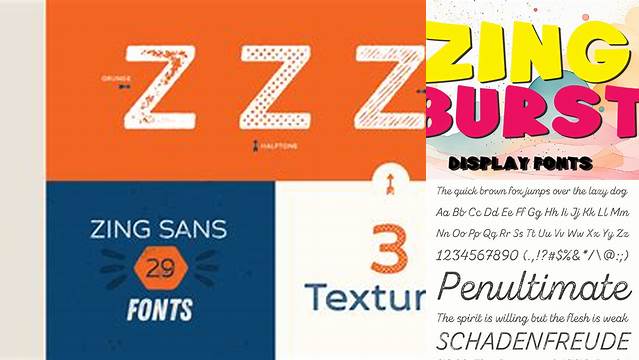
Zing Font: A Designer's Guide To Uses And Pairing
Let's dive deep into the world of Zing Font! This guide will explore everything you need to know about this unique typeface, including its characteristics, best uses, and where to find it. Whether you're a seasoned designer or just starting, understanding the nuances of fonts like Zing can significantly enhance your projects. So, buckle up and get ready to explore the ins and outs of Zing Font.
What is Zing Font?
Zing Font is a typeface known for its distinctive and playful design. It often features rounded edges, unique letterforms, and a generally friendly appearance. Because of these qualities, it's a great option for projects that need a touch of creativity and fun. The specifics of Zing Font, such as its designer, the year it was created, and the exact licensing, can vary based on the specific version or source you're looking at. You might find different variations of Zing Font on different font platforms, each with its own particular flair. For instance, some versions may have a more geometric feel, while others might be more whimsical.
When you're checking out Zing Font, pay attention to the details. Look at the curves, the stroke thickness, and the overall balance of the letters. These elements play a big role in how the font feels and how well it works in different designs. Also, consider where you're downloading the font from. Reputable font foundries and websites will usually provide detailed information about the font's designer, its intended use, and any licensing restrictions. This can help you make sure you're using the font legally and ethically. For example, some fonts are free for personal use but require a commercial license if you're using them in a project that generates revenue. So, always do your homework before incorporating a new font into your work!
Moreover, the versatility of Zing Font makes it suitable for a range of applications. You can find it in logos, branding materials, website headers, posters, and even children's books. Its readability and visual appeal can make your message stand out and grab attention. Just imagine using Zing Font for a quirky cafe logo or a vibrant event poster – it has the potential to add a lot of personality and charm. Remember to pair it wisely with other fonts to create a balanced and harmonious design. A clean and simple sans-serif font, for example, can complement Zing Font nicely without overshadowing its unique characteristics. All in all, Zing Font is a valuable asset to have in your font library, providing you with a creative tool to enhance your design projects.
Key Characteristics of Zing Font
When you're working with Zing Font, it's essential to understand its key characteristics to make the most of its unique qualities. One of the most noticeable features is its rounded terminals, which give it a soft and approachable feel. Unlike fonts with sharp serifs or abrupt endings, Zing Font's curves make it appear more friendly and inviting. This characteristic makes it particularly well-suited for designs targeting a younger audience or projects that aim to convey a sense of warmth and playfulness. Imagine using Zing Font for a children's clothing brand or a toy store advertisement – its gentle curves can create a positive and engaging impression.
Another important aspect of Zing Font is its unique letterforms. The specific shapes and proportions of the letters often have a distinctive flair that sets it apart from more generic fonts. For example, the 'g' might have an unusually large loop, or the 'a' might have a slightly slanted crossbar. These subtle details add personality and character to the font, making it instantly recognizable. When you're designing with Zing Font, pay attention to these individual letterforms and use them to your advantage. Consider highlighting certain letters or words to emphasize their unique shapes and create visual interest. This can be especially effective in logos or branding materials where you want to make a strong and memorable impression. Furthermore, the spacing between letters, known as kerning, can significantly impact the readability and visual appeal of Zing Font. Make sure to adjust the kerning as needed to ensure that the letters are evenly spaced and that the overall text looks balanced and harmonious. This is particularly important when using Zing Font in headlines or larger text sizes.
Additionally, Zing Font often comes in various weights and styles, ranging from light and airy to bold and impactful. This versatility allows you to use the font in different contexts and for different purposes. For example, you might use a light weight of Zing Font for body text in a brochure, while using a bold weight for headlines on a website. Having access to different weights and styles gives you greater flexibility in your design and allows you to create a cohesive and visually appealing layout. Moreover, the color you choose to use with Zing Font can also influence its overall appearance. Brighter colors can enhance its playful and cheerful qualities, while more muted colors can give it a more sophisticated and understated look. Experiment with different color combinations to find what works best for your specific design project.
Best Uses for Zing Font
Zing Font really shines when used in the right context. Its playful and friendly nature makes it a fantastic choice for designs that need to be approachable and engaging. Think about using it for children's books, where its soft, rounded edges and unique letterforms can capture the imagination of young readers. Or consider employing it in branding materials for a toy store or a family-friendly event, where its cheerful appearance can create a welcoming and positive impression. The key is to leverage its inherent charm to connect with your target audience and convey a sense of fun and creativity. When you're brainstorming ideas for using Zing Font, ask yourself what kind of message you want to send and whether its playful aesthetic aligns with your overall brand identity.
Logos and branding materials are another area where Zing Font can excel. Its distinctive letterforms can make your brand stand out from the competition and create a memorable visual identity. Whether you're designing a logo for a startup or rebranding an existing business, Zing Font can add a touch of personality and character. However, it's important to use it judiciously and to ensure that it aligns with your brand's overall message and values. For example, if you're branding a high-end luxury product, Zing Font might not be the most appropriate choice. But if you're branding a creative agency or a tech startup, its playful and modern aesthetic could be a perfect fit. Also, think about how Zing Font will look in different sizes and formats. Make sure it's legible and recognizable whether it's printed on a business card or displayed on a website.
Websites and digital media can also benefit from the unique appeal of Zing Font. Use it for headings, subheadings, or even call-to-action buttons to add a touch of personality and visual interest. Just be mindful of readability and make sure that the font is easy to read on screens of different sizes. Pair it with a clean and simple sans-serif font for body text to create a balanced and harmonious design. Moreover, consider using Zing Font in social media graphics or email newsletters to grab attention and engage your audience. Its playful aesthetic can help your content stand out in a crowded digital landscape. Experiment with different colors, sizes, and styles to see what works best for your brand and your target audience. Remember to optimize your designs for mobile devices to ensure that they look great on smartphones and tablets.
In conclusion, Zing Font is a versatile and playful typeface that can add a touch of personality to a variety of design projects. Its rounded edges, unique letterforms, and friendly appearance make it a great choice for children's books, branding materials, websites, and more. By understanding its key characteristics and best uses, you can leverage Zing Font to create engaging and memorable designs. Remember to choose a reliable source for downloading Zing Font and to pair it with other fonts that complement its unique qualities. With a little experimentation and creativity, you can unlock the full potential of Zing Font and create designs that stand out from the crowd. So go ahead, give Zing Font a try and see what it can do for your next project!